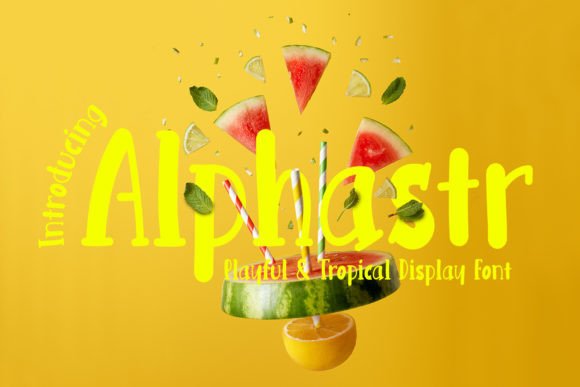
In a realm where aesthetics and functionality intertwine, Alphastr emerges as the ultimate display font, a masterpiece crafted to capture the essence of tropical allure. Inspired by the vibrant tapestry of tropical fruits, this font embodies the luscious flavors and tantalizing scents that ignite the senses. Step into a world where typography transforms into a culinary delight, where each letter and character tantalizes the taste buds with its delectable curves and juicy contours.
Alphastr is a font that dances on the palate like a tropical breeze, infusing designs with a burst of freshness and a hint of exotic charm. It's a symphony of flavors, a visual symphony that brings the vibrant hues and captivating textures of tropical fruits to life. With Alphastr, your designs will exude an irresistible appeal, evoking memories of sun-kissed beaches, swaying palm trees, and the sweet surrender to tropical indulgence.
Picture yourself immersed in a design project that demands a touch of tropical magic. Whether it's a food packaging design that promises a taste of paradise or a restaurant menu that entices diners with its mouthwatering descriptions, Alphastr emerges as the perfect companion. Its playful yet sophisticated forms weave a tale of culinary delight, promising an unforgettable dining experience.
The Alphastr font is a versatile chameleon, adapting seamlessly to a myriad of design endeavors. Unleash its potential in promotional posters, where it commands attention and ignites curiosity with its tantalizing allure. Let it grace invitations, evoking the promise of tropical celebrations and exotic getaways. Transform your social media posts into delectable treats, captivating audiences with the font's playful exuberance.
With Alphastr at your creative disposal, you possess the power to transport your audience to a tropical paradise, where every design becomes a sensory journey. Its vibrant energy and playful spirit will leave an indelible mark on your projects, ensuring that your designs resonate with audiences on a deeper level.
So, embark on this tropical adventure with Alphastr, and let your creativity flourish amidst the vibrant hues and tantalizing flavors of the tropics. Taste the sweetness of success as your designs become the epitome of tropical sophistication.